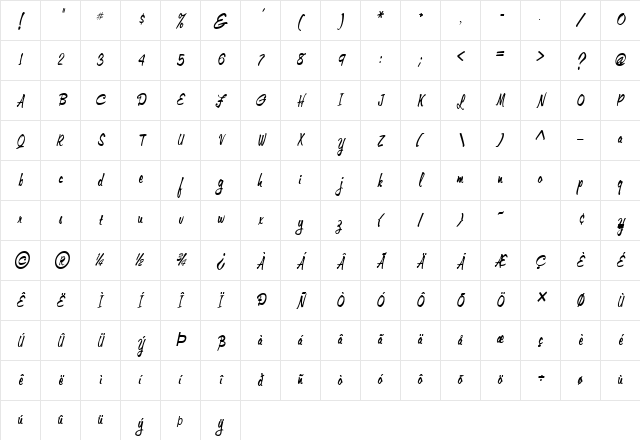
MemoCondensed Italic
Design Context for MemoCondensed
MemoCondensed is a composed and adaptable typeface that performs quietly and consistently across a wide range of design contexts. The slanted form adds forward momentum and visual energy. Its narrow stance lets it pack a punch even in space-constrained designs.
Pro Tip: Use MemoCondensed for emphasis, pull quotes, and subheadings where its slanted energy can add rhythm to the layout.